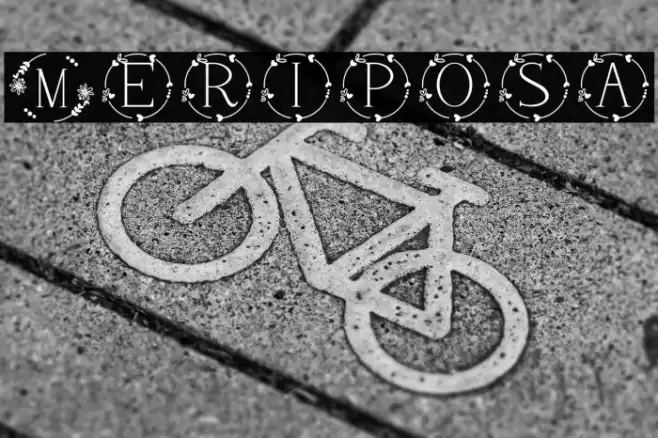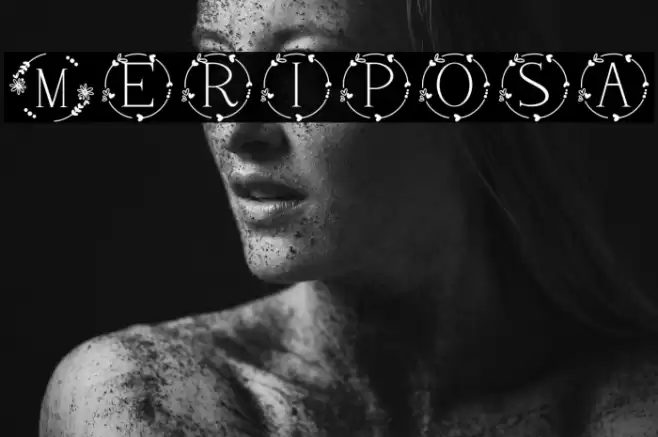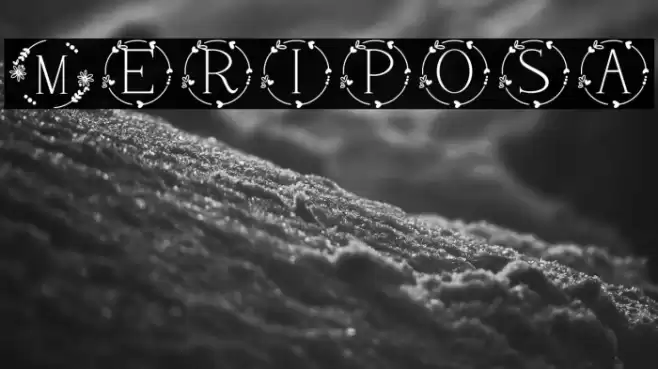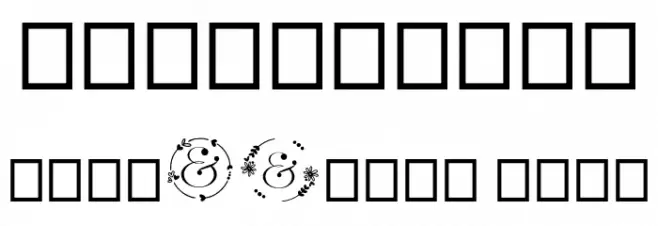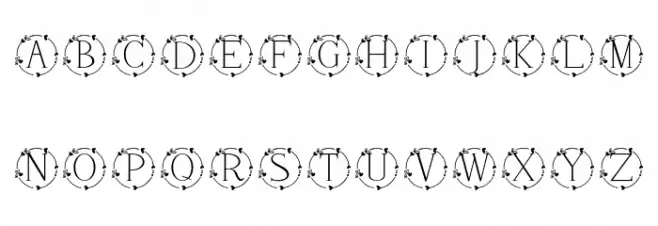
Meriposa Font
Meriposa Description
This decorative font features uppercase letters encased in circular floral wreaths, adding an elegant and whimsical touch. The letters are serif, with delicate strokes that complement the intricate floral designs surrounding each character. The font includes a full set of uppercase letters, numerals, and a selection of special characters, all maintaining the same decorative style. The overall appearance is both sophisticated and playful, making it suitable for a variety of creative projects.
A decorative serif font with uppercase letters in floral wreaths from Uncategorized fonts.
- Proposed Projects: Ideal for wedding invitations, greeting cards, branding for floral shops, or any project requiring a touch of elegance and nature-inspired design.
- Use Case: Logos, Invitations, Decorative headings